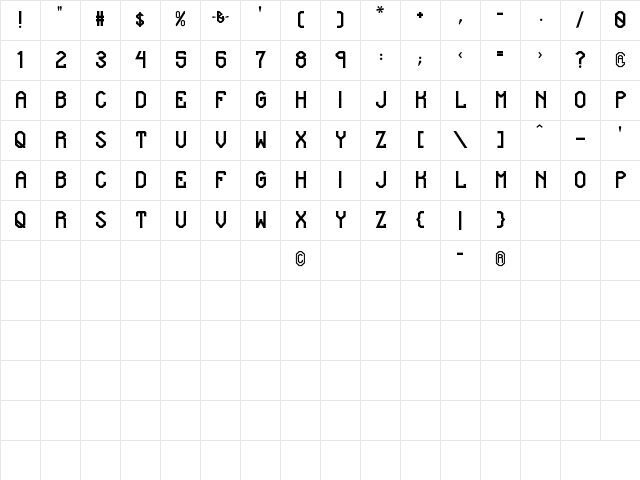
EE-Skyline Regular Free Font
EE-Skyline Regular
Designer: Evan Eckard
Design Context for EE-Skyline
EE-Skyline is a composed and adaptable typeface that performs quietly and consistently across a wide range of design contexts.